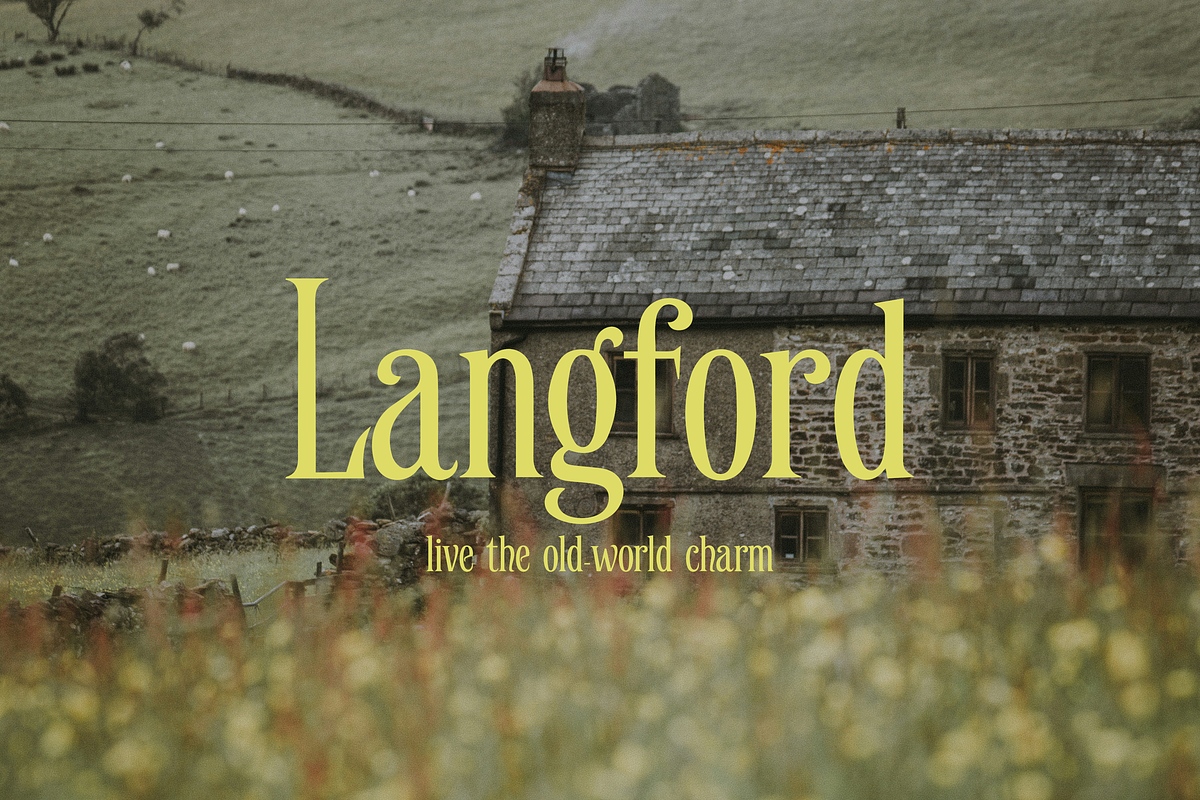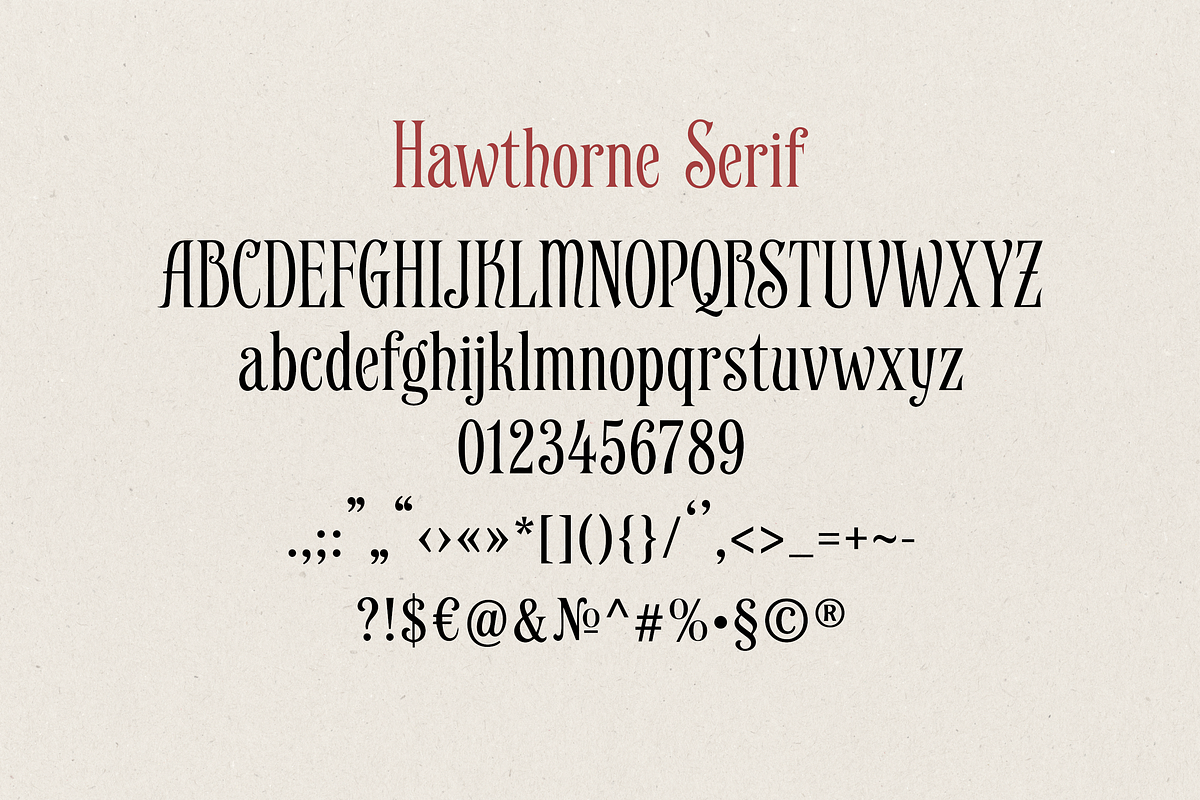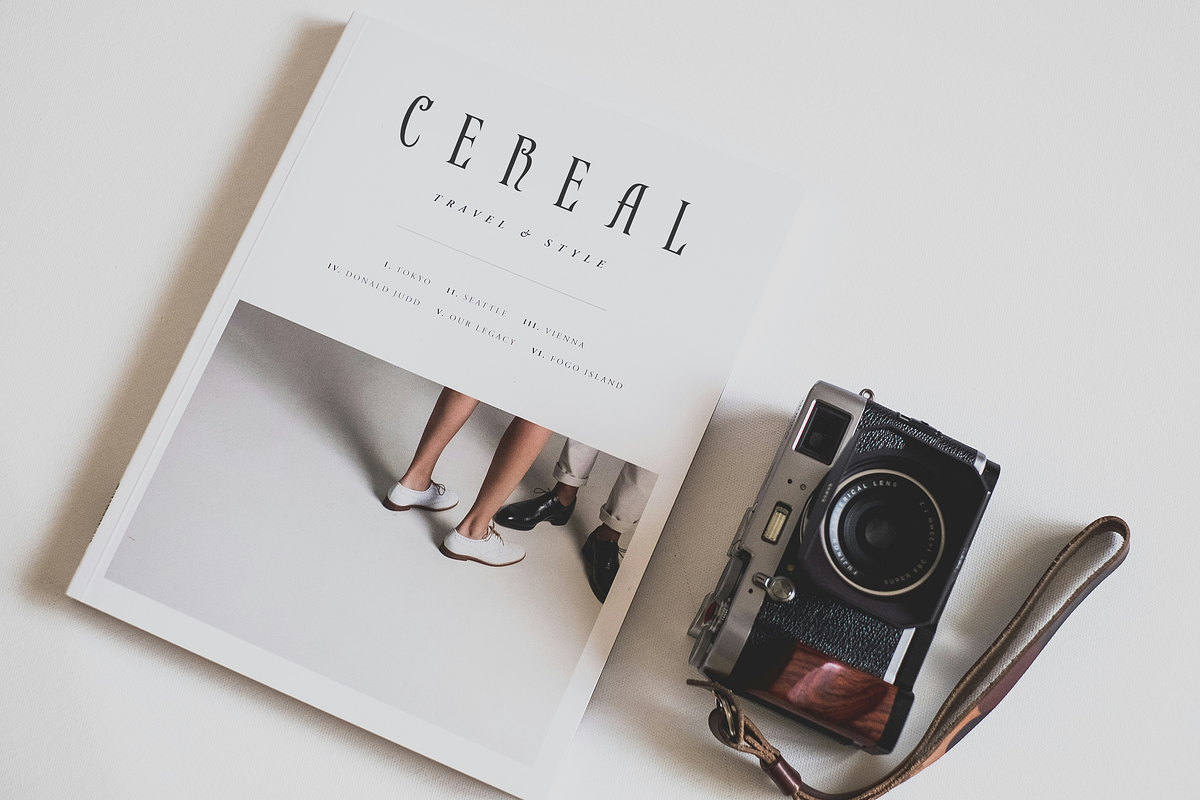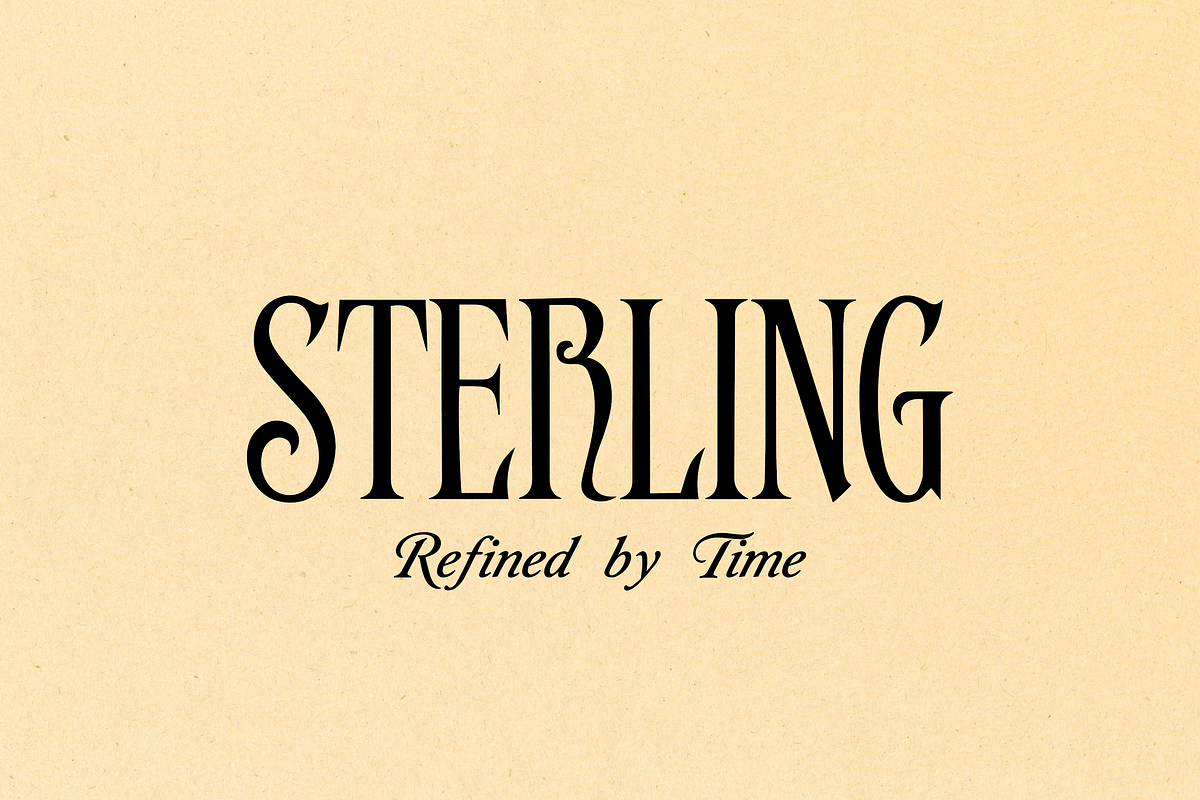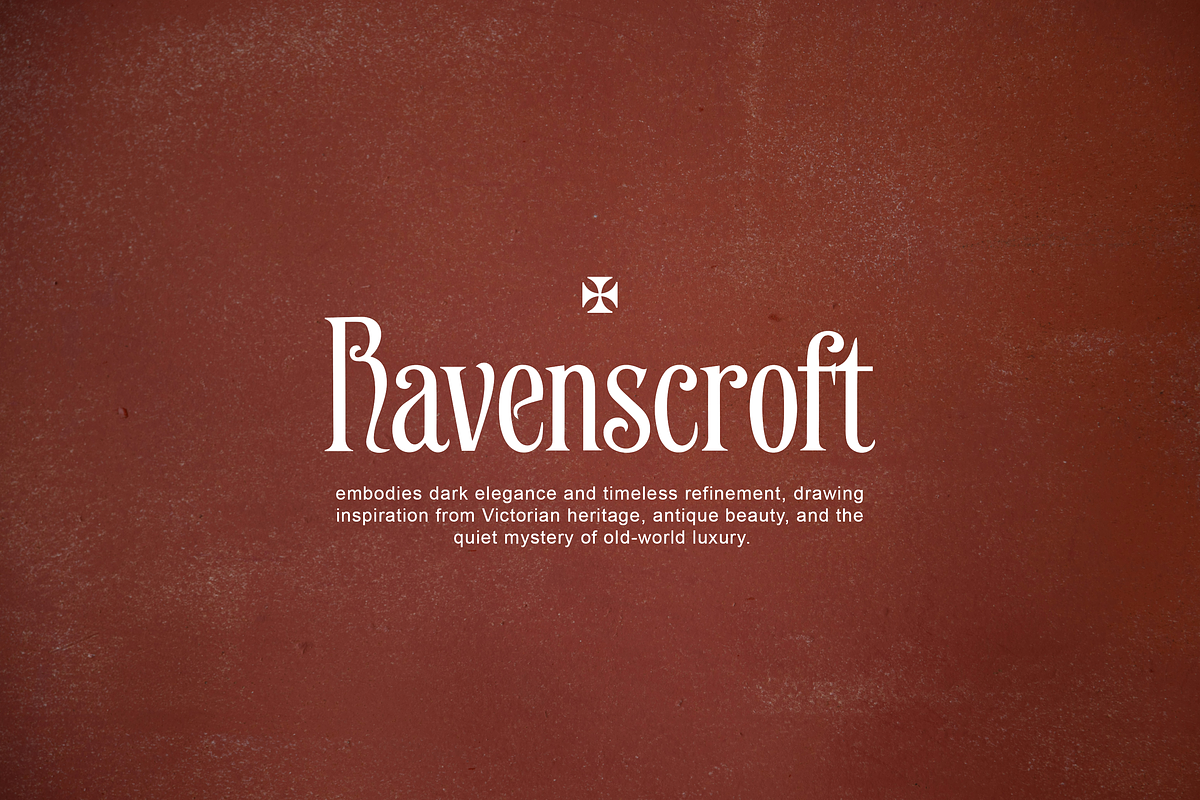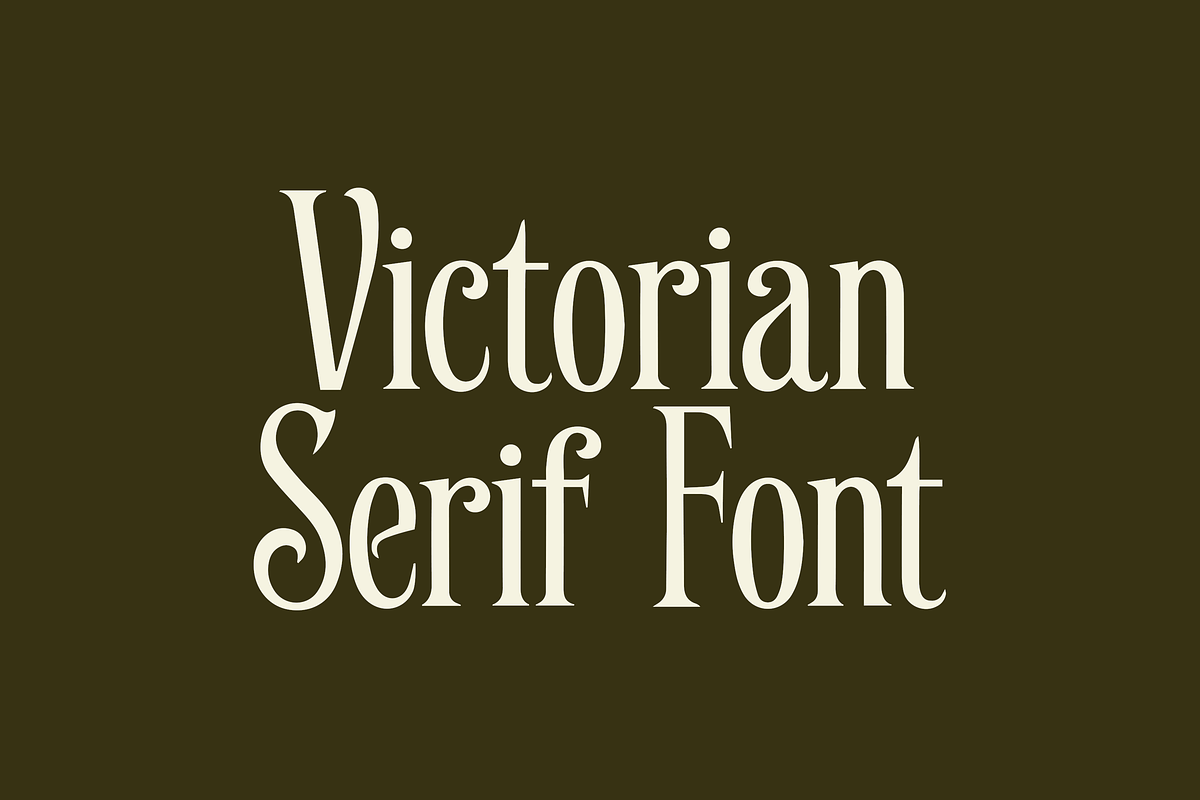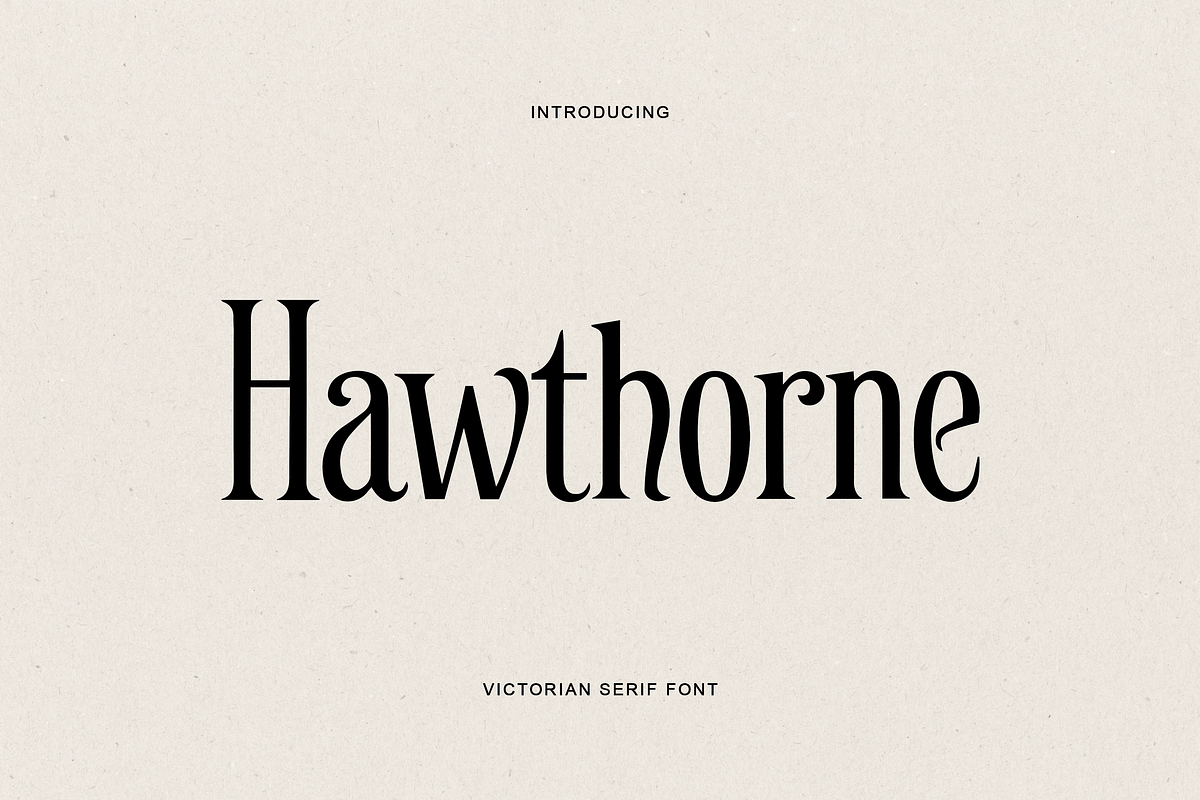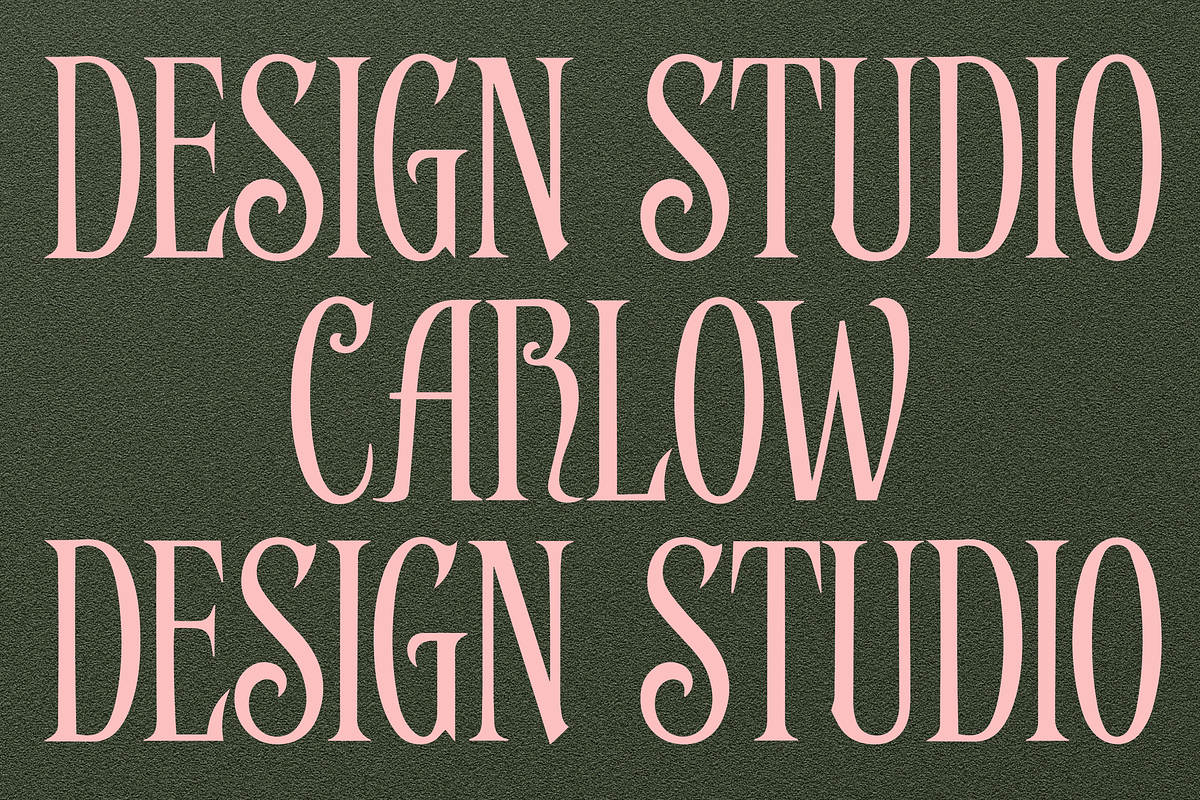
Hawthorne Victorian Serif
Hawthorne is an elegant Victorian serif font with a refined vintage character, perfect for branding, editorials, logos, packaging, and timeless design projects.